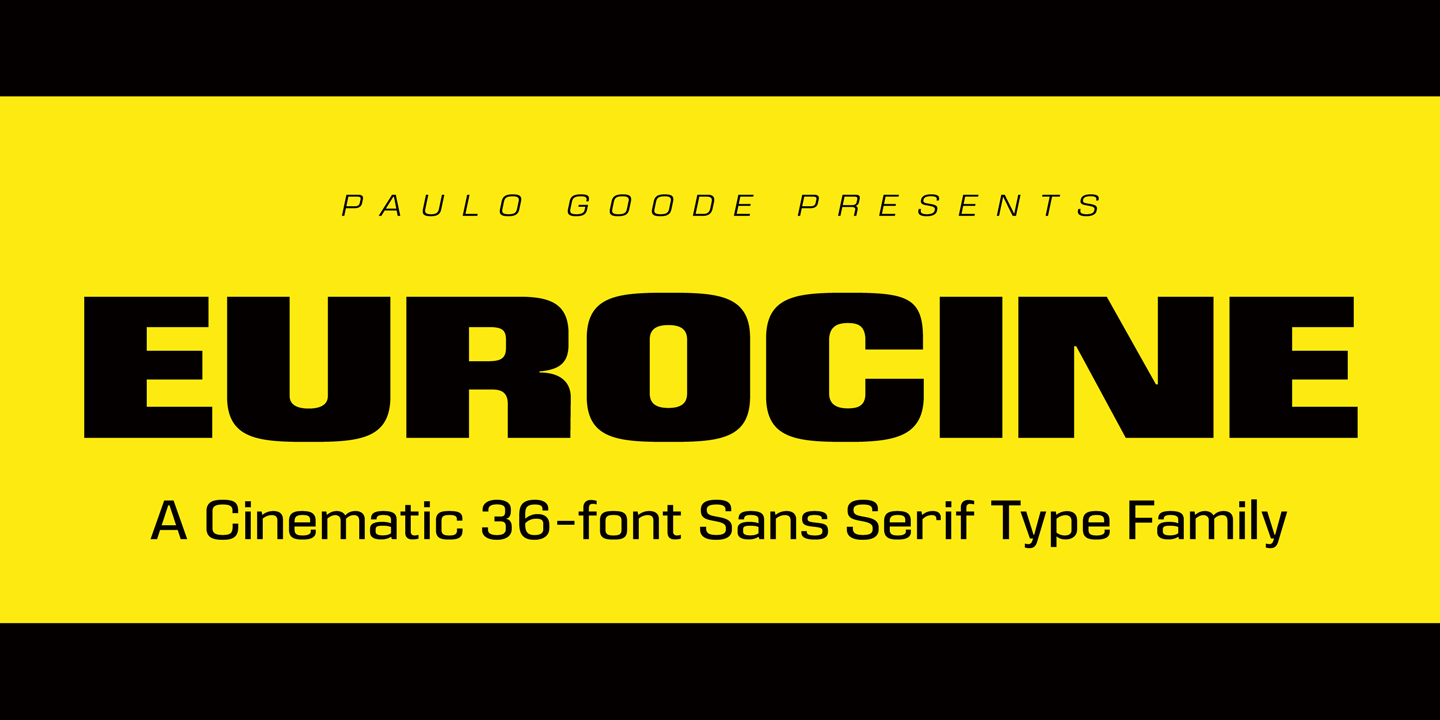
Eurocine Font Free Download is a stylish and artistic typeface that captures the retro cinematic feel of classic European movie posters. With its elegant curves, strong presence, and vintage vibe, this font is perfect for branding, editorial layouts, posters, and creative design projects that require a nostalgic yet sophisticated touch.
The unique character of Eurocine stands out in both large headlines and smaller text settings, offering versatility for various design purposes. Its bold personality and smooth flow make it an excellent choice for designers who want to evoke emotion and create memorable visual experiences. Eurocine Font Free Download blends traditional aesthetics with a modern edge, ensuring relevance across multiple design styles.
Available in different styles and weights, Eurocine gives designers the flexibility to adapt it for logos, advertisements, posters, and more. Its timeless charm and polished appearance bring authenticity and creative depth to any project. Download Eurocine Font Free Download today and elevate your work with vintage cinematic elegance.